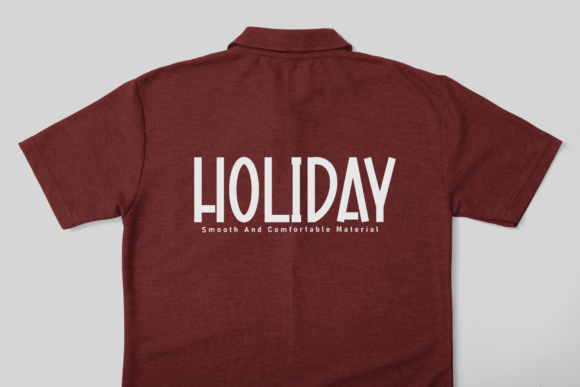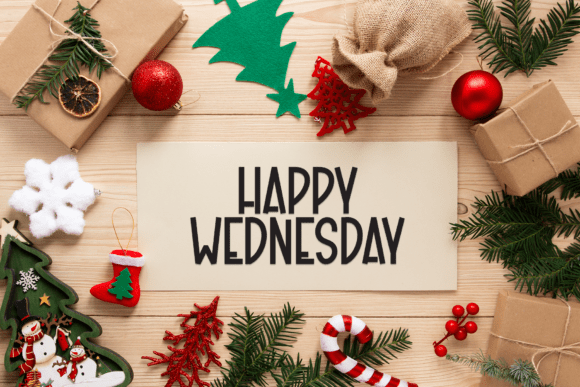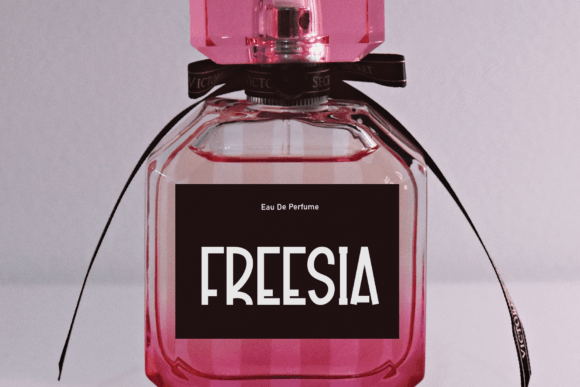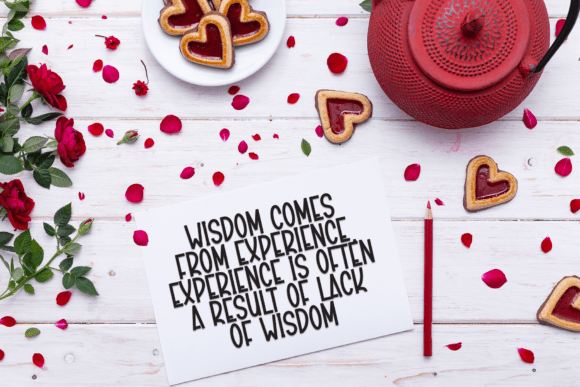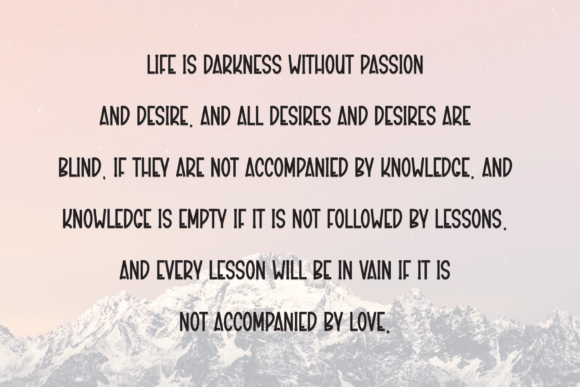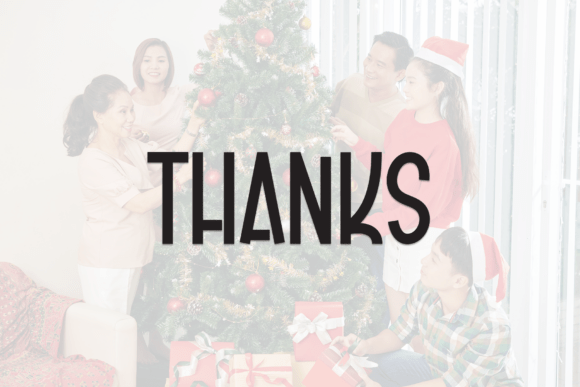
Unwrap the Magic of the Holiday Season with Family Christmas Font
As the snowflakes start to fall and the fireplace crackles to life, the holiday season is upon us. It’s a time to reconnect with loved ones, share stories, and create memories that last a lifetime. For designers, it’s also a chance to unleash their creativity and bring the magic of the season to life through their work. Whether you’re crafting festive cards, designing holiday packaging, or creating seasonal signage, you need a font that captures the essence of the season – and that’s where the Family Christmas Font comes in.
This beautifully crafted display font is more than just a typeface – it’s a way to spread holiday cheer and connect with your audience on a deeper level. With its tall, clean strokes and playful, slightly uneven edges, Family Christmas Font is the perfect addition to any holiday design project. Its simplicity ensures readability, while its handmade quality adds a personal, authentic vibe that makes your designs stand out from the crowd.
Family Christmas Font Key Features
- Font Family: The Family Christmas Font is a unique and festive font, ideal for holiday designs and projects. It includes multiple font styles, such as bold, regular, and outline, to cater to various design needs.
- Character Count: The font includes a wide range of characters, including uppercase and lowercase letters, numbers, and special characters, making it suitable for various design applications.
- Unique Characteristics: The Family Christmas Font features a distinctive, hand-drawn design with a vintage feel, making it perfect for adding a touch of warmth and personality to holiday designs.
Review of “Family Christmas Font”
Overall, I found “Family Christmas Font” to be a sweet and endearing addition to any holiday design project. ✨ It captures the warmth and coziness of the season perfectly, making it ideal for Christmas cards, invitations, or any other festive design.
The font is highly customizable, allowing designers to adjust the size, color, and style to suit their project’s needs. ✨ It also comes with a variety of ornaments and decorations that can be easily added or removed, giving designers a lot of creative control.
- ⚠️ Limited flexibility in terms of font style – it’s more of a traditional, classic font rather than a modern or experimental one.
- ⚠️ Some of the ornaments and decorations can feel a bit too “stock” or overused, which may detract from the overall design.
- ⚠️ Not suitable for projects that require a more minimalist or modern aesthetic.
Overall, I’d give “Family Christmas Font” 4 out of 5 stars. While it may have some limitations, it’s a great choice for designers looking to create warm and inviting holiday designs. With a bit of creativity and experimentation, it can be a great addition to any project.
Getting the Most Out of the Family Christmas Font
To get the most out of the Family Christmas Font, consider the following tips:
Use the font in conjunction with festive graphics and images to create a cohesive design.
Experiment with different font sizes and styles to add visual interest to your design.
Use the font to create a consistent brand identity or to match a specific theme.
The Family Christmas Font is ideal for:
Creating festive holiday cards and invitations.
Designing holiday-themed social media graphics and ads.